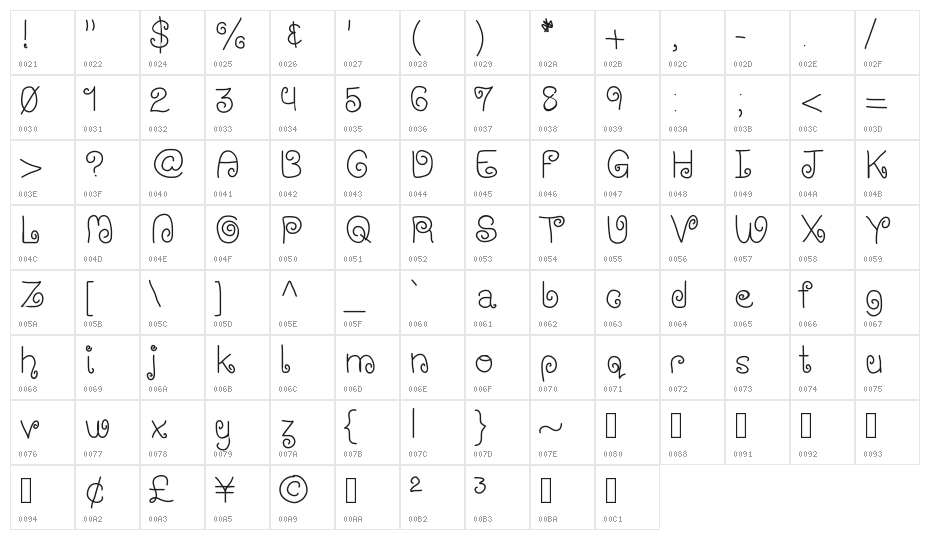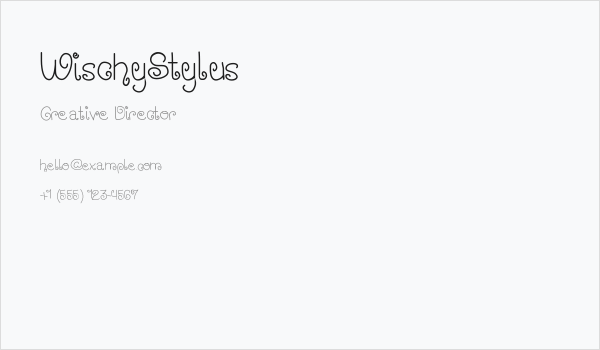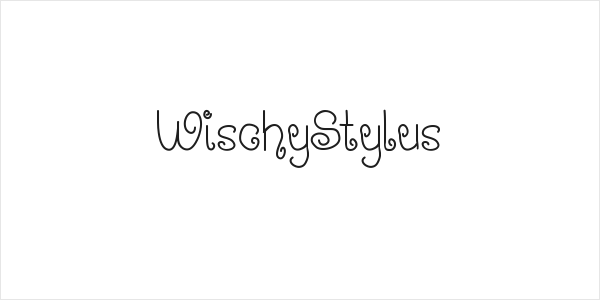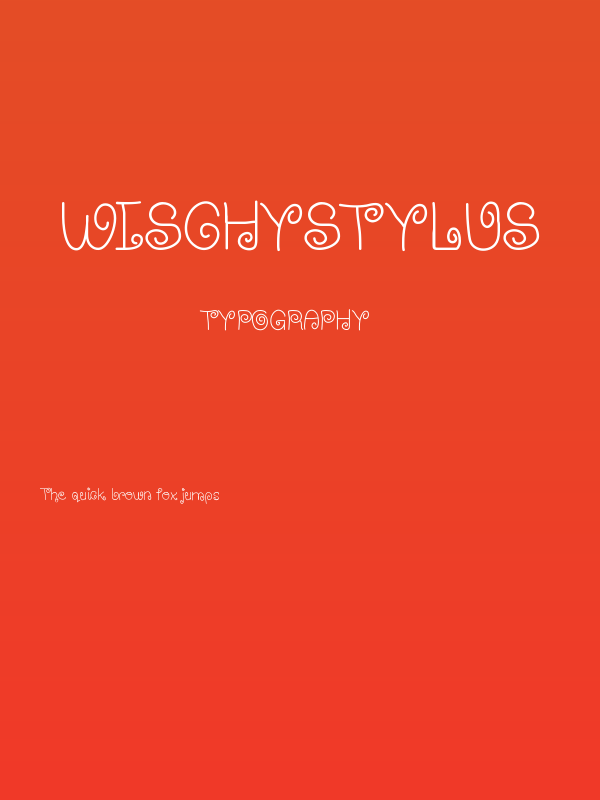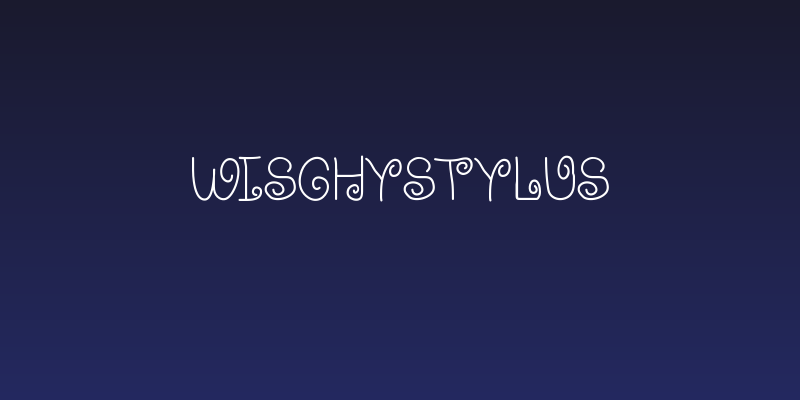
WischyStylus Font
WischyStylus Description
This font features a whimsical and playful design, characterized by its curly and swirly elements that give it a unique and decorative appearance. The letters have a hand-drawn quality, with each character exhibiting a distinct personality through its exaggerated curves and loops. The uppercase and lowercase letters maintain a consistent style, while the numbers and special characters follow suit with similar embellishments. This font exudes a sense of fun and creativity, making it ideal for projects that require a touch of whimsy and charm.
Use CaseLogos, Headlines, Creative projects
Proposed ProjectsIdeal for children's books, greeting cards, playful branding, and creative invitations.